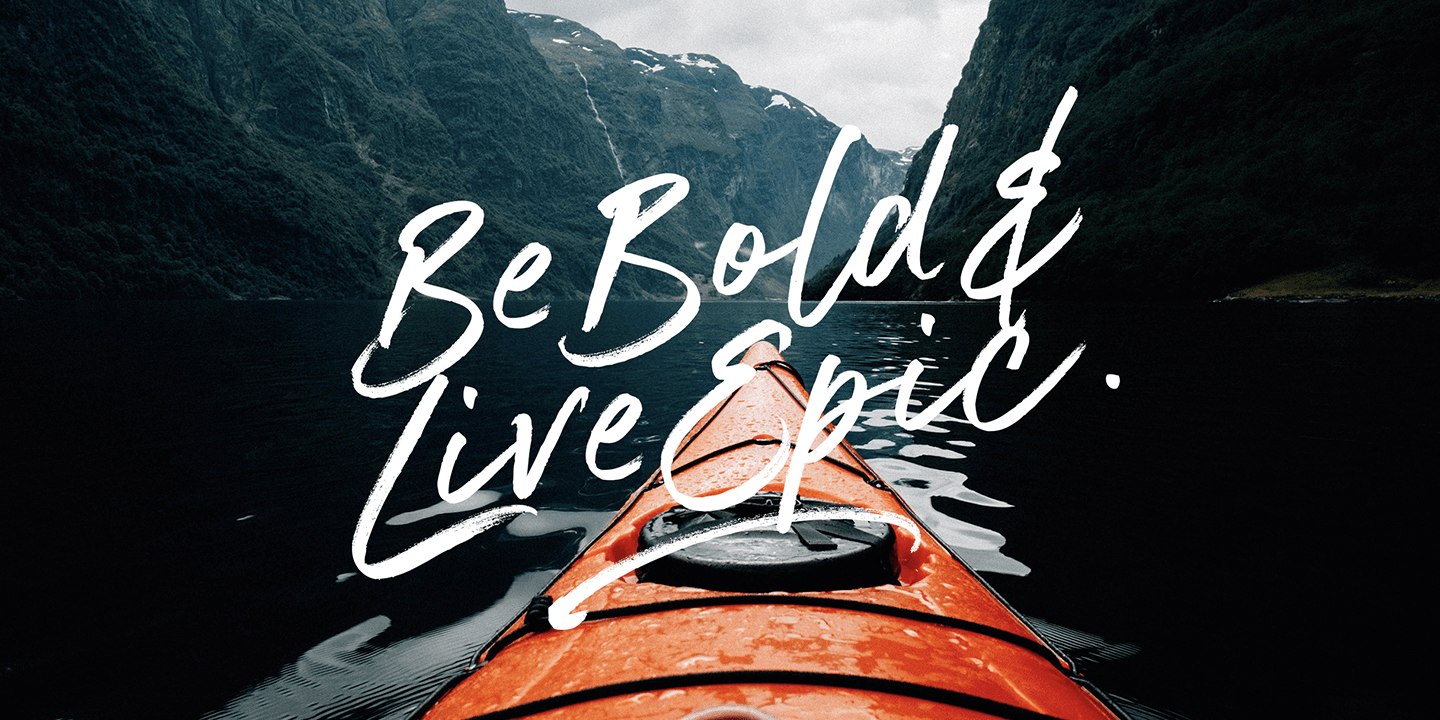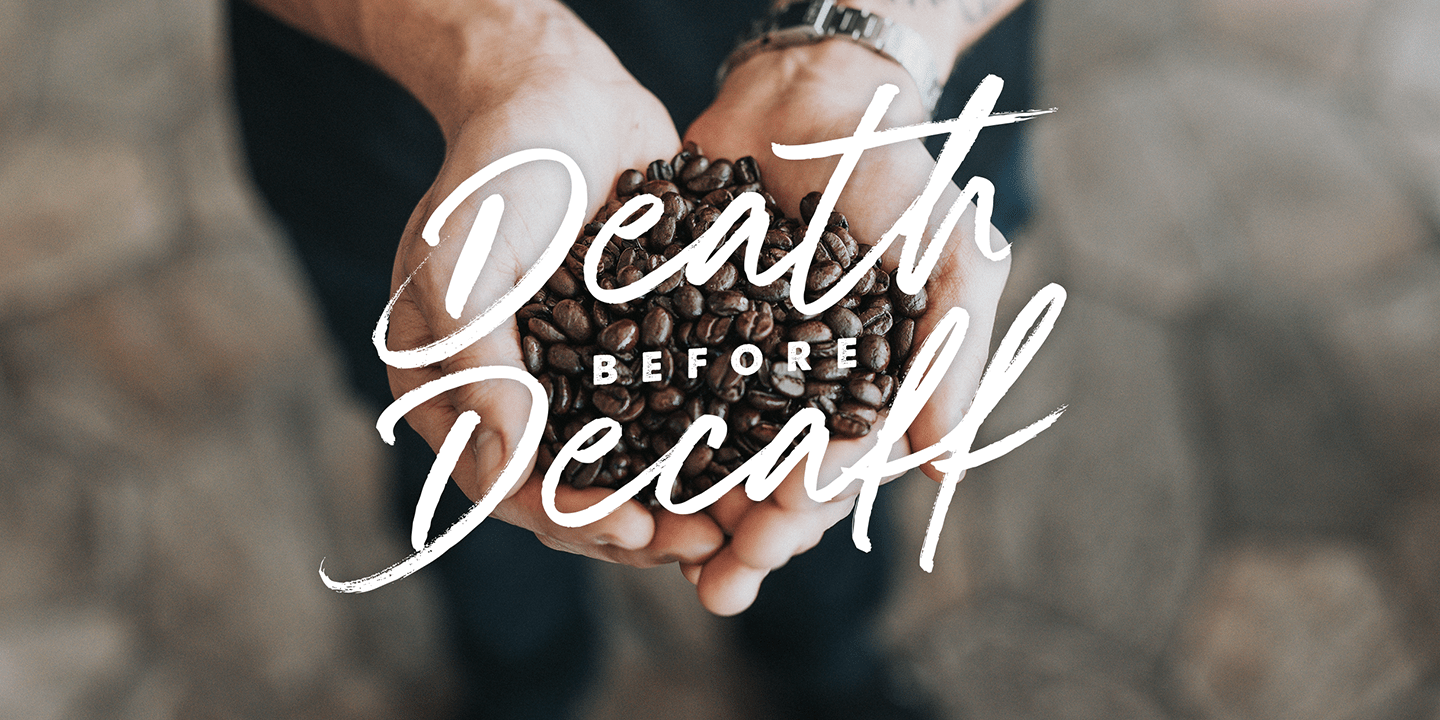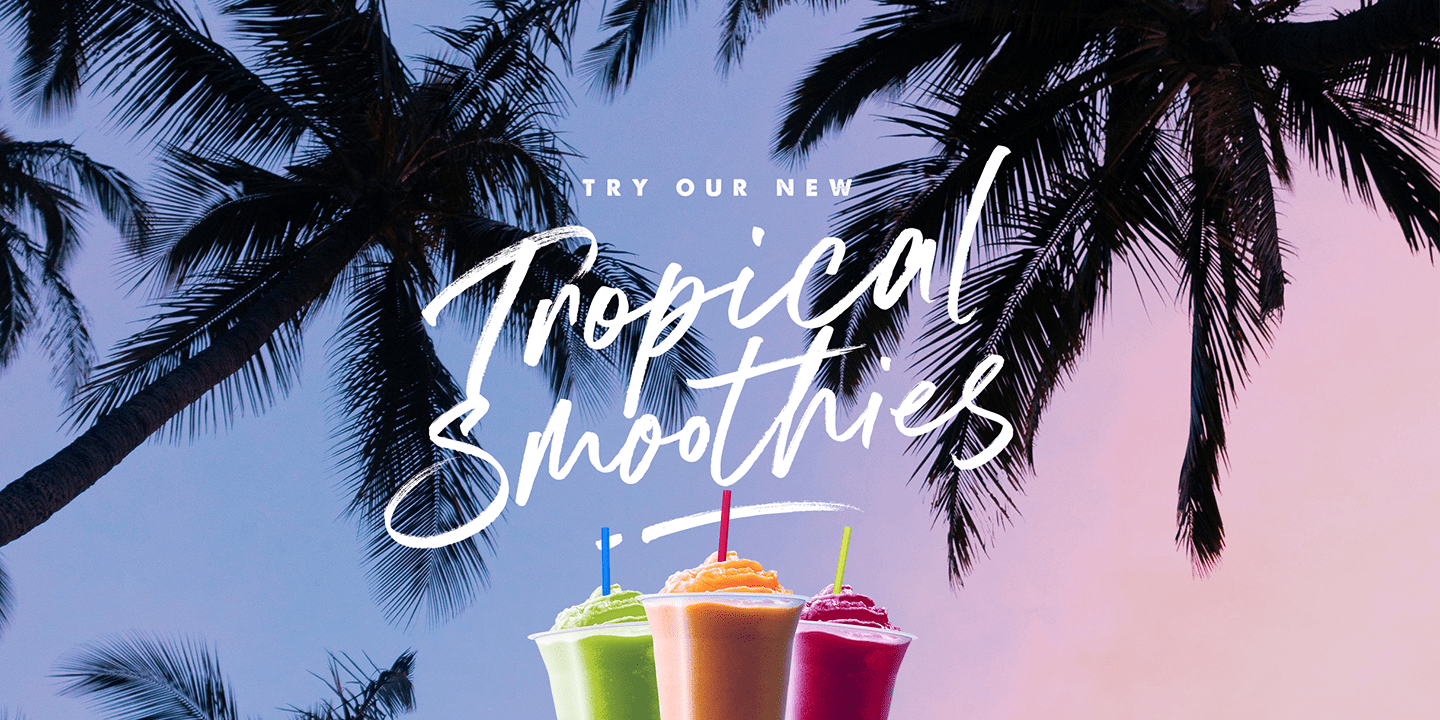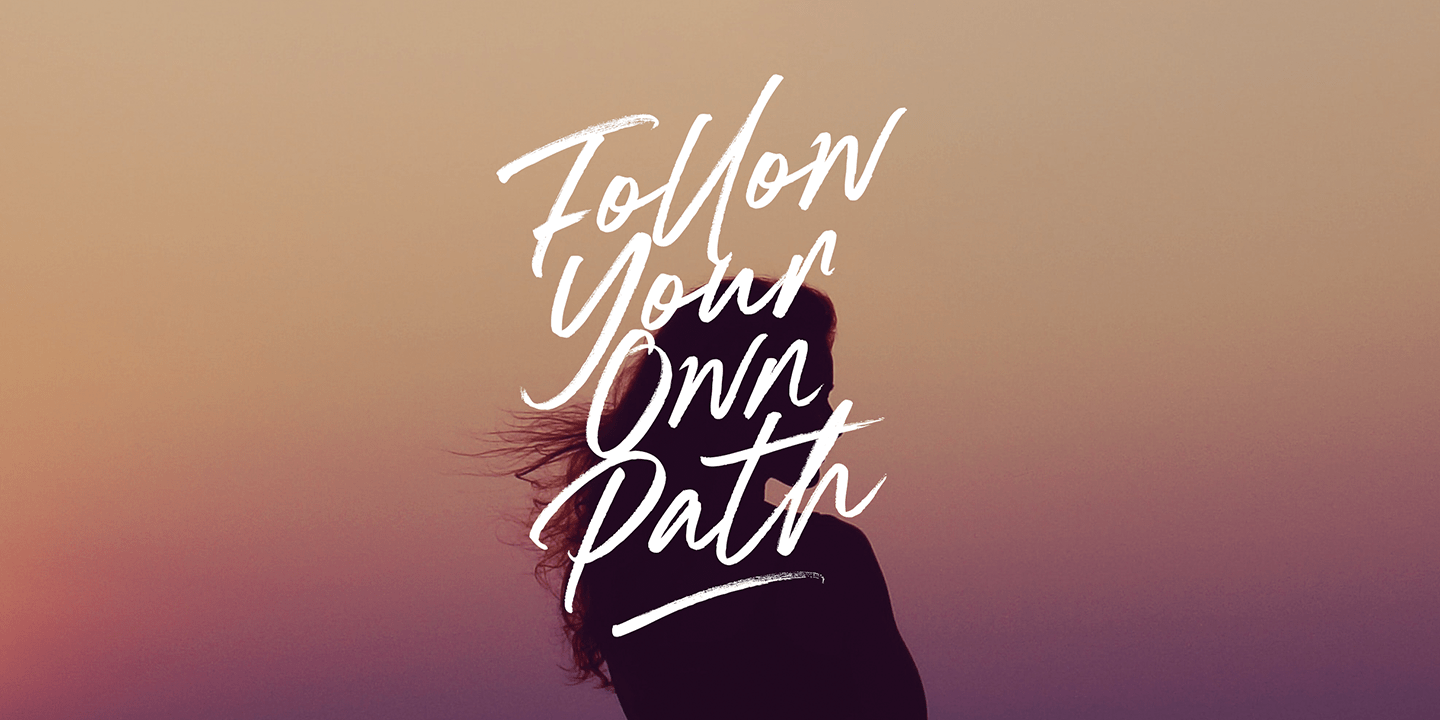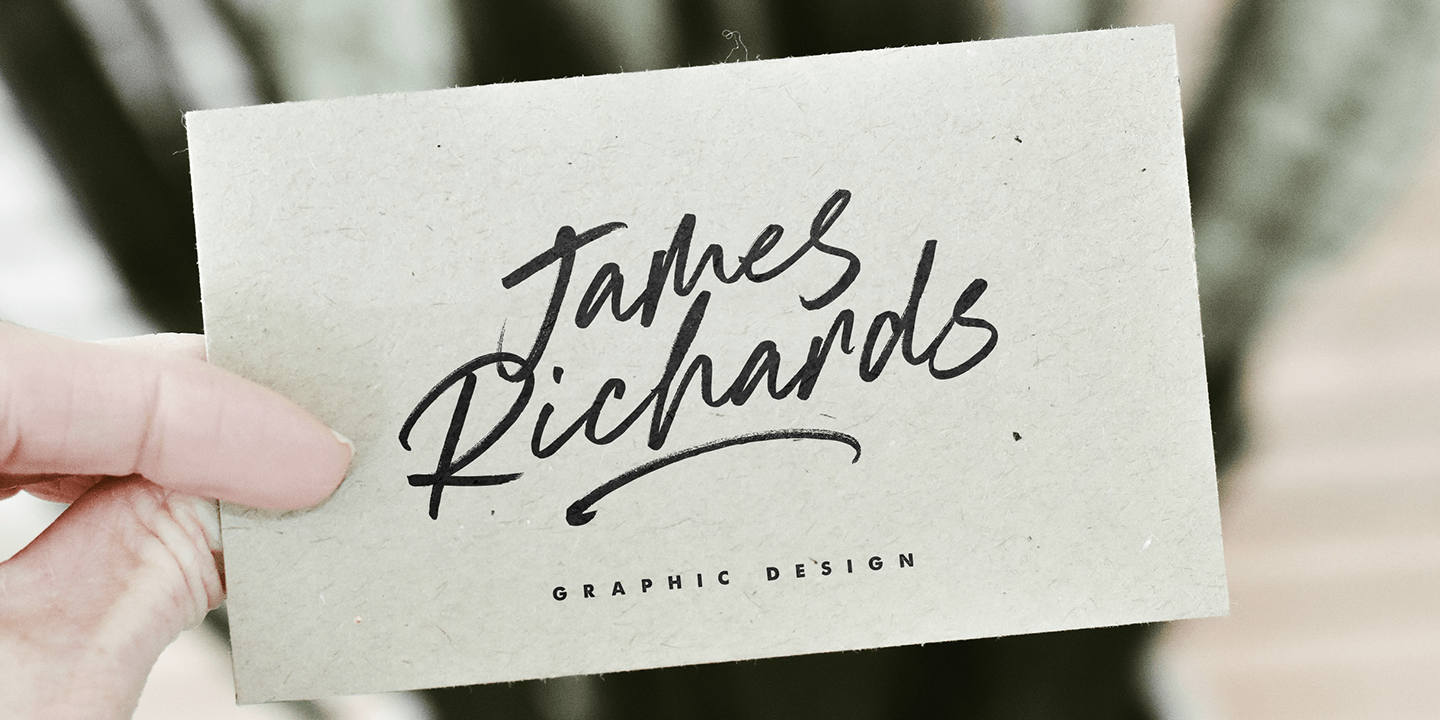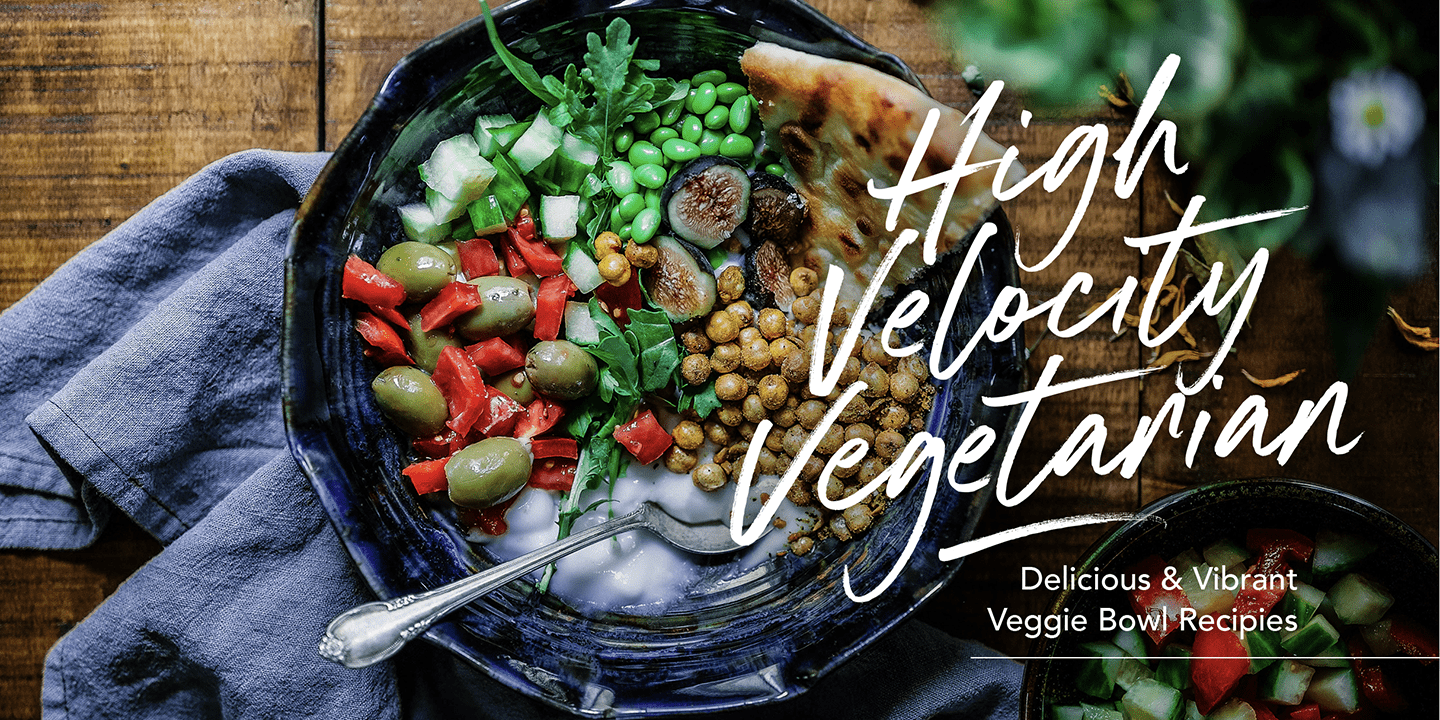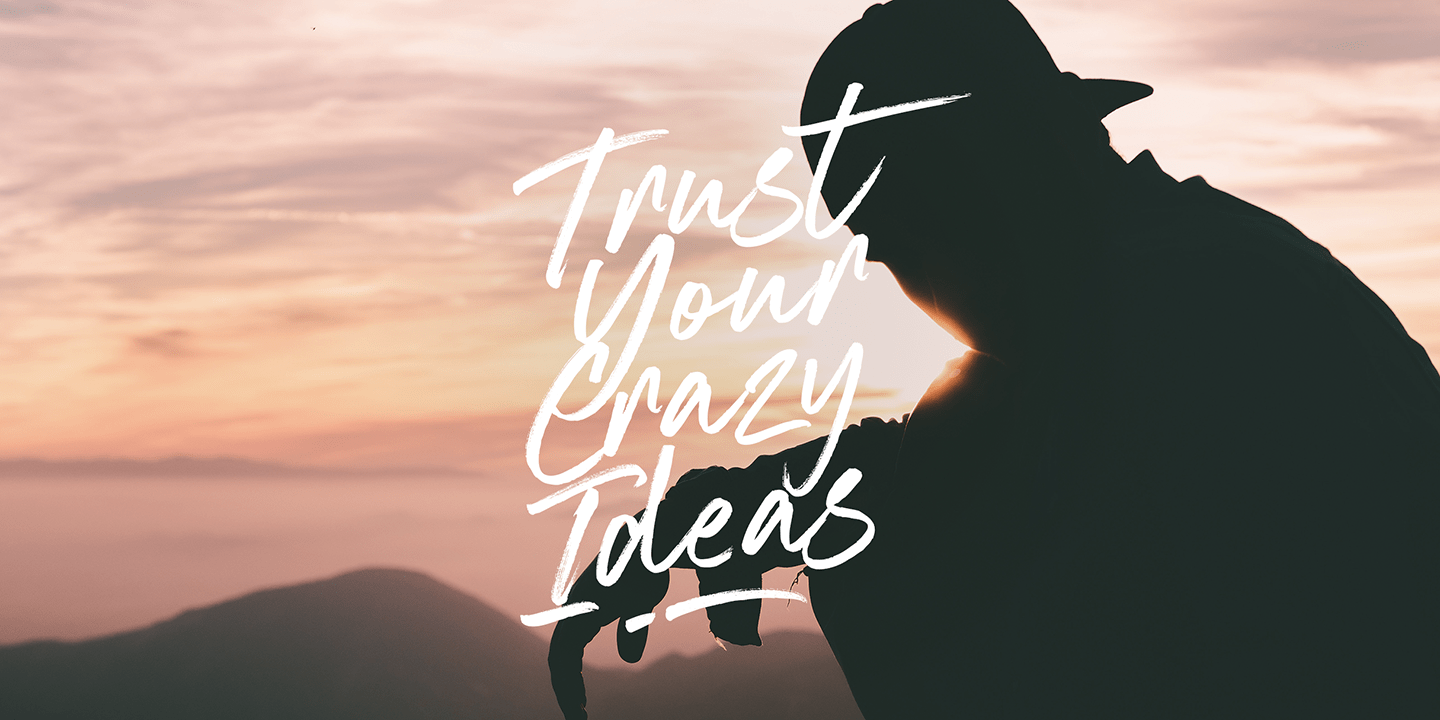
South Coast
Font Family by Set Sail Studios
Keep it fresh with South Coast! A cool and confident brush font designed to deliver refreshing script lettering to a range of design projects. South Coast consists of: South Coast • A handwritten brush script font containing upper & lowercase characters, numerals, and a large range of punctuation. South Coast Alt • This is a second version of South Coast, with a completely new set of both upper and lowercase characters. If you wanted to avoid letters looking the same each time to recreate a custom-made style, or try a different word shape, simply switch to this font for an additional layout option. South Coast Swash • A third font containing 23 hand drawn swashes. Simply type any a-z or A-Z character in this font to generate a swash. Perfect for underlining your South Coast text and adding a bit of extra flair! Ligatures • 15 ligatures (double-letters) are included to help your lettering flow more naturally. Language Support • South Coast fonts support the following languages; English, French, Italian, Spanish, Portuguese, German, Swedish, Norwegian, Danish, Dutch, Finnish, Indonesian, Malay, Hungarian, Polish, Croatian, Turkish, Romanian, Czech, Latvian, Lithuanian, Slovak, Slovenian